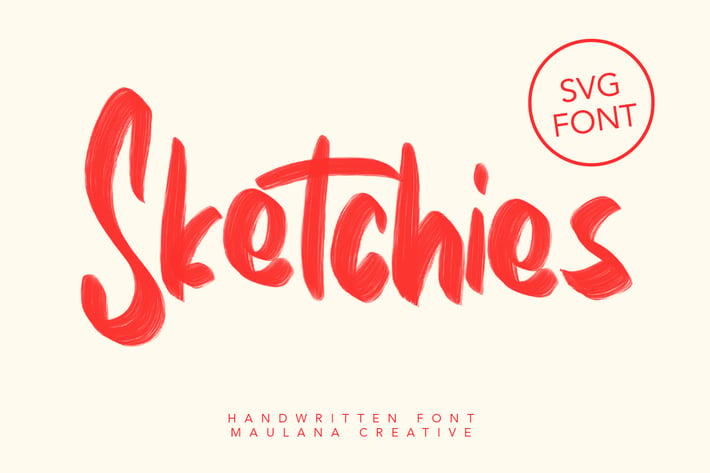
Sketchies SVG Brush Font
Give your designs an authentic handcrafted feel. "Sketchies" is perfectly suited to signature, stationery, logo, typography quotes, magazine or book cover, website header, clothing, branding, packaging design and more.